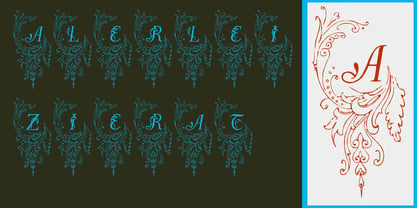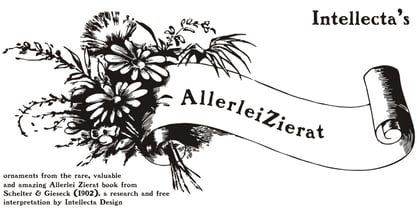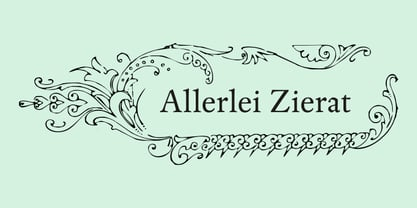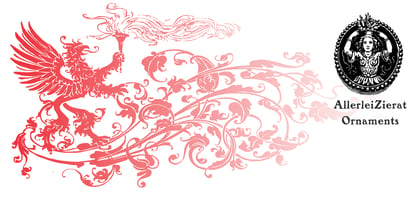
Allerlei Zierat
About Allerlei Zierat
Ornaments family with four different sets plus a decorative capitals font from the rare, valuable and amazing Allerlei Zierat book from Schelter & Gieseck (1902). A research and free interpretation by Intellecta Design. This encyclopedic specimen book…